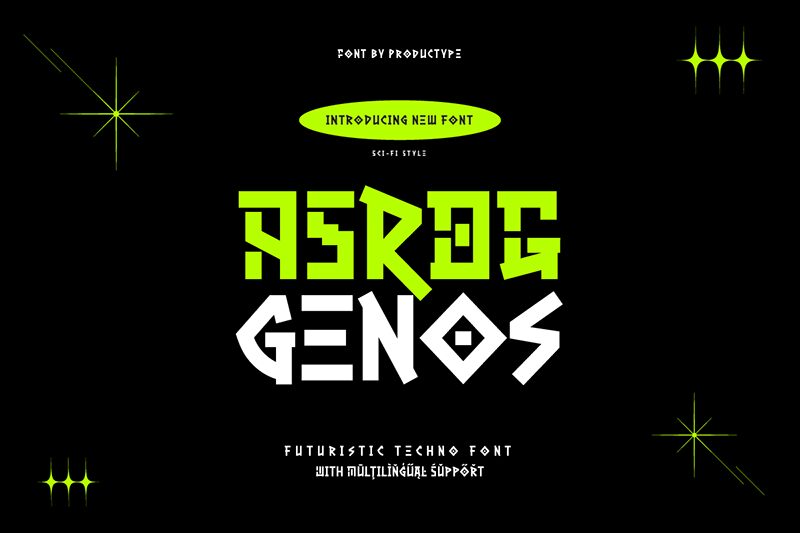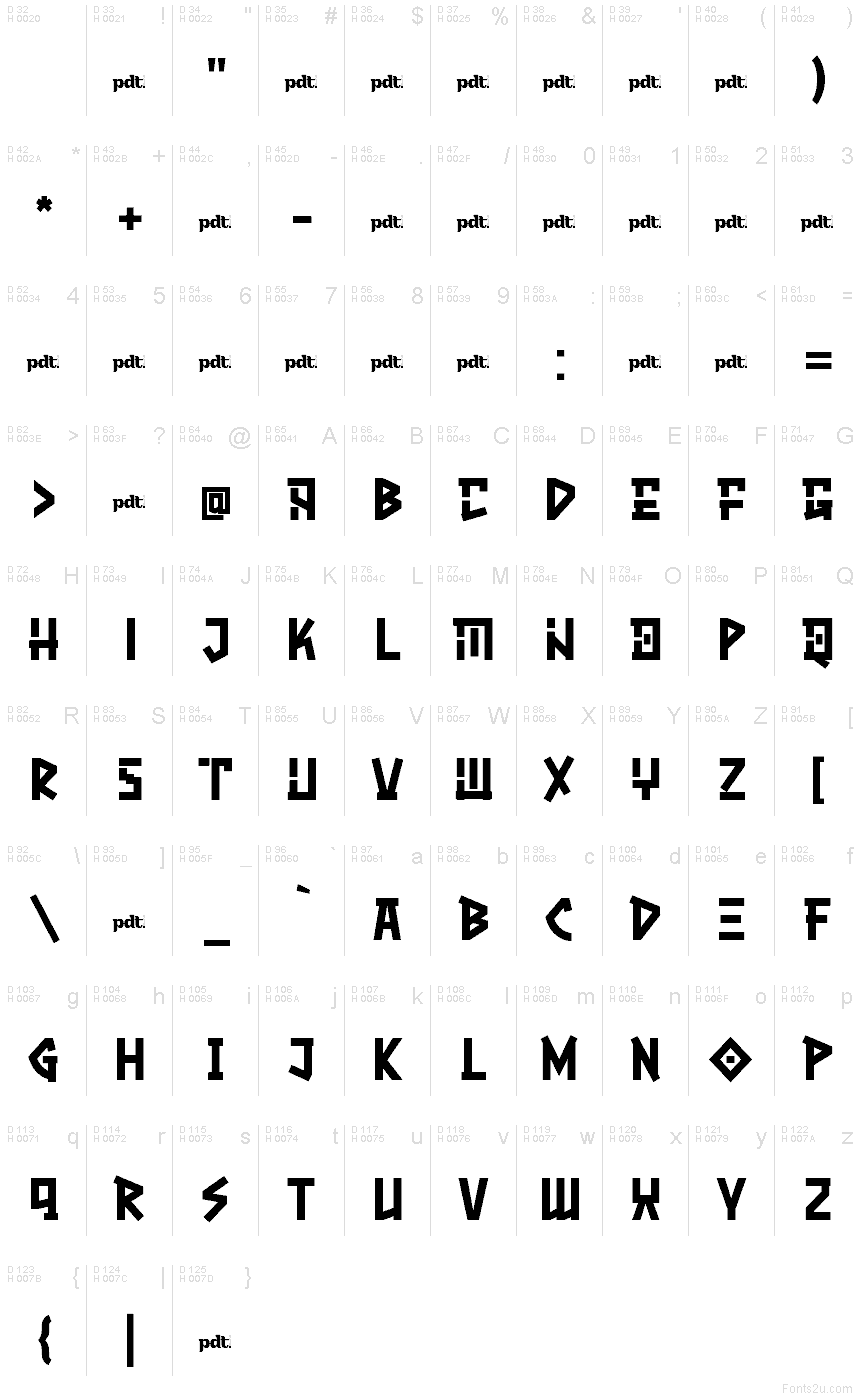
ASROG GENOS trial Regular
Asrog Genos font by productype.com is a blocky and geometric display typeface that features futuristic and angular designs. Industrial-inspired, the font is non-traditional with its structures, straying away from the typical characters that we are used to seeing when reading. All these unique characteristics give it a special charm that makes stand out remarkably.
The free futuristic display font can be applied in developing label designs as well as branding ones for unusual brands. It also shines on t-shirts, covers, infographics, website headers, landing pages, banners and many other configurations of digital artwork and print setups.